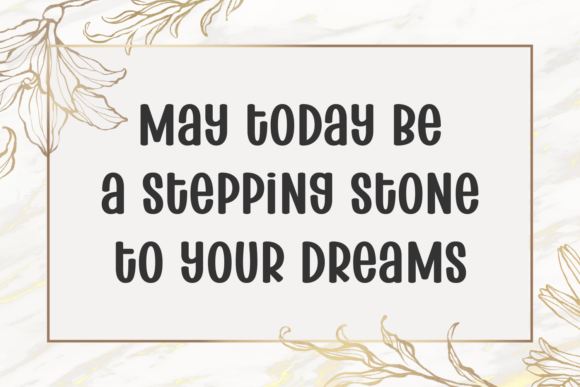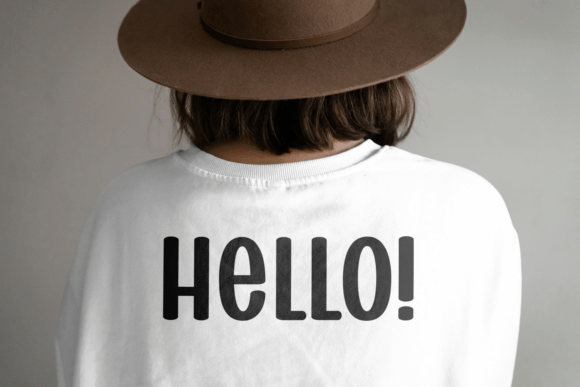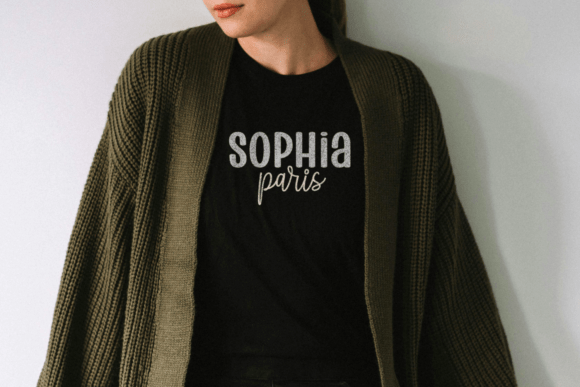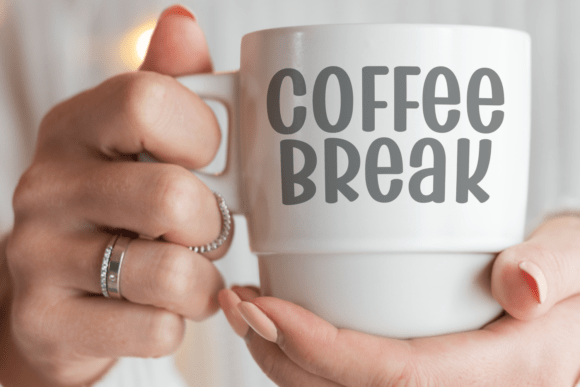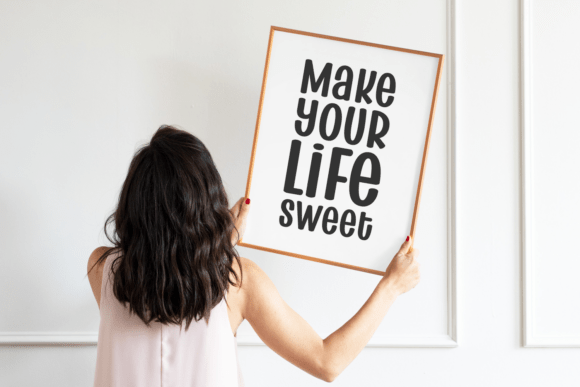
Introduction to Hello Glamor Font
As you sit at your desk, surrounded by scraps of paper, colored pens, and a blank canvas, you feel the creative juices flowing. The perfect design is just around the corner, and you’re on the hunt for that elusive font that will make your project stand out. Enter the Hello Glamor Font, a game-changing design resource that’s about to become your new best friend.
With its light-hearted, playful aura, the Hello Glamor Font is perfect for Valentine’s and Mother’s Day inspirations, adding a distinctive touch to your banners, posters, and branding. Its modern, casual silhouette makes it an ideal choice for apparel, logo, and wedding design. Whether you’re working on a high-quality creative project or just need a cute and powerful font for your design, the Hello Glamor Font is sure to impress.
Key Features of Hello Glamor Font
- High-quality, professional font designed for creative projects and digital designs
- Unique, stylish design elements make it perfect for adding a touch of glamour to your projects
- Easy to use and customize with any design software or application
- Perfect design resource for graphic designers, artists, and anyone looking for a high-quality font
Honest Review: Hello Glamor Font
I recently had the chance to experiment with the Hello Glamor Font, a free download from a popular design resource. Overall, I’m impressed with its potential for creative projects.
- High quality: The font’s design is smooth, and it looks great on various backgrounds, including those with transparent backgrounds.
- Easy to use: The font comes in various weights and styles, making it versatile for different design needs.
- Not ideal for tiny text: The font’s design might not be suitable for very small text sizes, as it can become hard to read.
- No bold italics: Some users might find it inconvenient that there’s no bold italic version available.
Despite these limitations, I believe the Hello Glamor Font is a great addition to any designer’s toolkit. Its high quality and free availability make it a great resource for creative projects.
Overall, I’d recommend the Hello Glamor Font for designers looking for a stylish and free font to enhance their designs.
Tips for Getting the Most Out of Hello Glamor Font
For optimal results, use the Hello Glamor Font in a design project that requires a high-quality, creative font. The font is particularly suitable for use in a free download design template or a commercial project that requires a professional look. Experiment with different font sizes, colors, and styles to achieve the desired effect.
The Hello Glamor Font is commonly used in design projects that require a creative, high-quality font. Some common use cases include:
- Wedding invitations and wedding stationery
- Photography captions and photo editing
- Graphic design and digital art